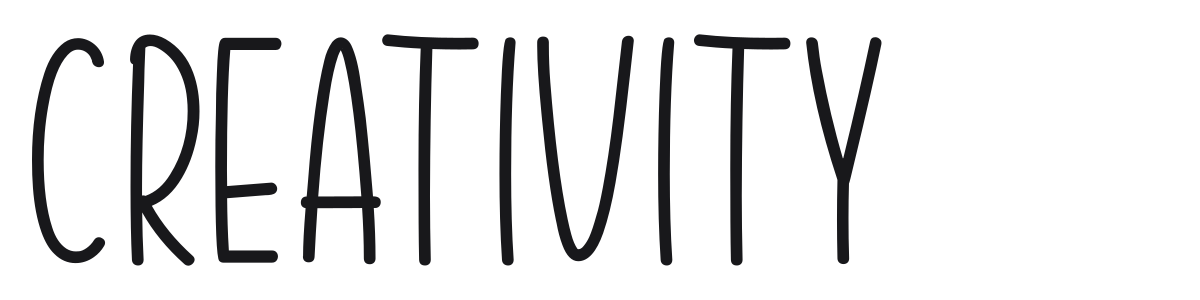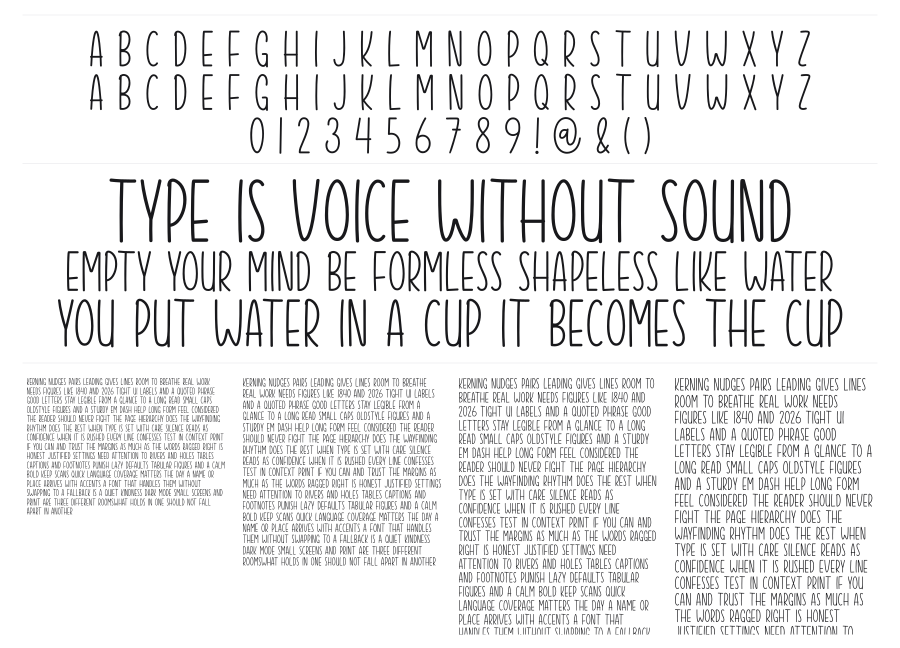
Creativity
Creativity is a tall, narrow hand-drawn sans with an organic, sketchbook quality that sets it apart from clean geometric types. Slight stroke irregularities and informal terminal details give each character a personal, handcrafted feel. Works well in headlines, packaging, and anywhere a friendly, creative voice is needed.